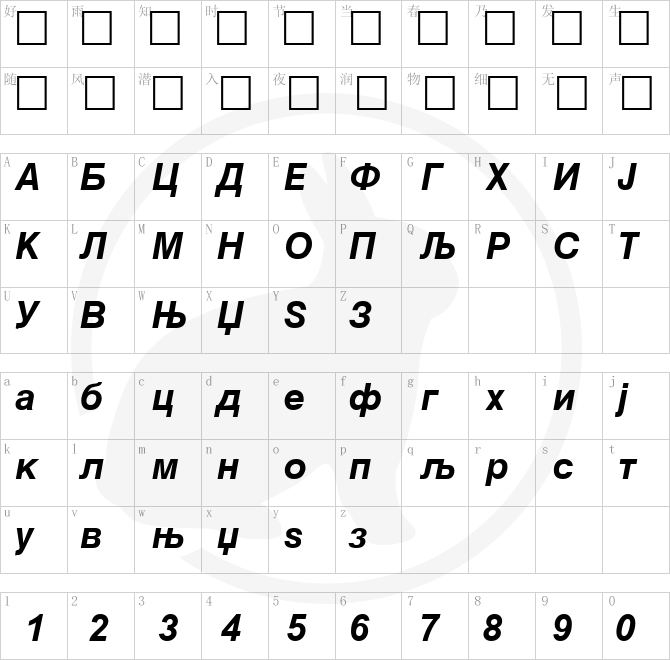
- Font Name:Macedonian Helv
Macedonian-Helv-Bold-Italic.ttf is a very beautiful artistic font, Macedonian-Helv-Bold-Italic.ttf is widely used in the design and printing of various books and pictures,Macedonian-Helv-Bold-Italic.ttf has a strong visual impact,Macedonian-Helv-Bold-Italic.ttf is a commonly used font in newspapers, magazines and books, and is used in posters, e-commerce Poster design, store design, logo design, font design and other fields.Macedonian-Helv-Bold-Italic.